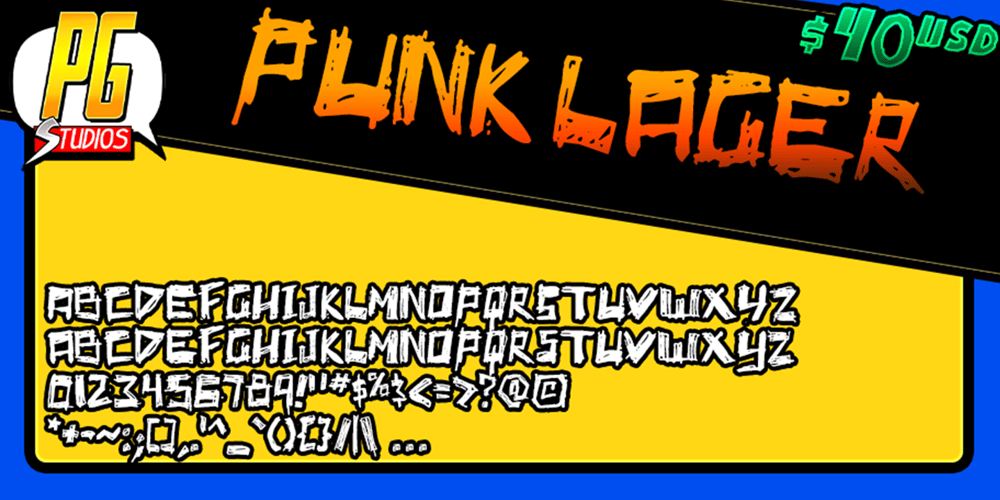
Punk lager
Punk lager font
Punk lager Font Family was designed by Andeh Pinkard and published by PressGang Studios. Punk lager contains 1 styles and family package options. Sticking to my punk roots, I tried to design a font that could be seen on some kind of local punk gig flyer